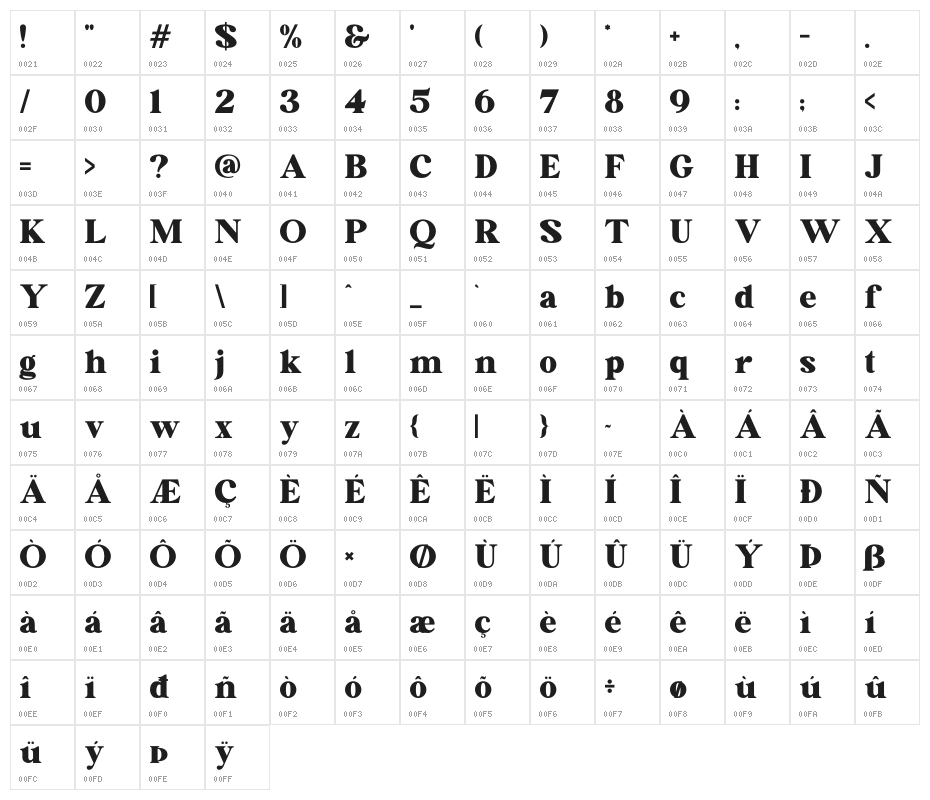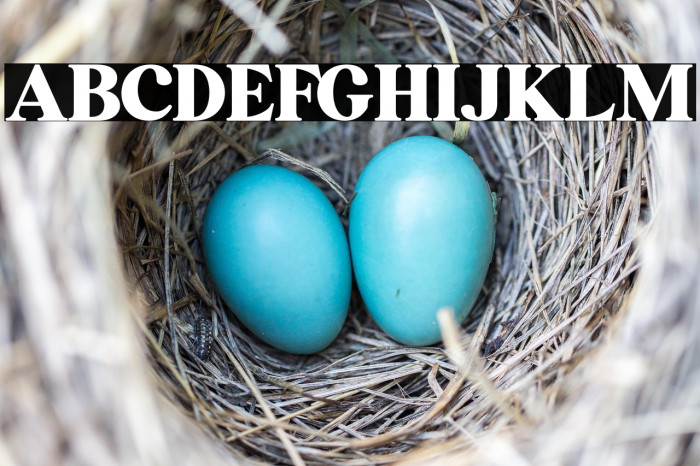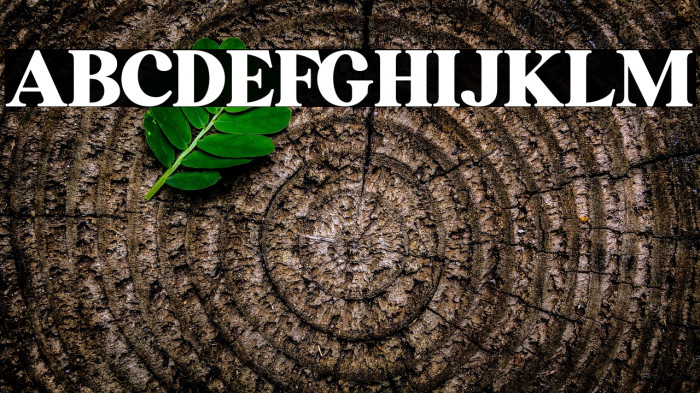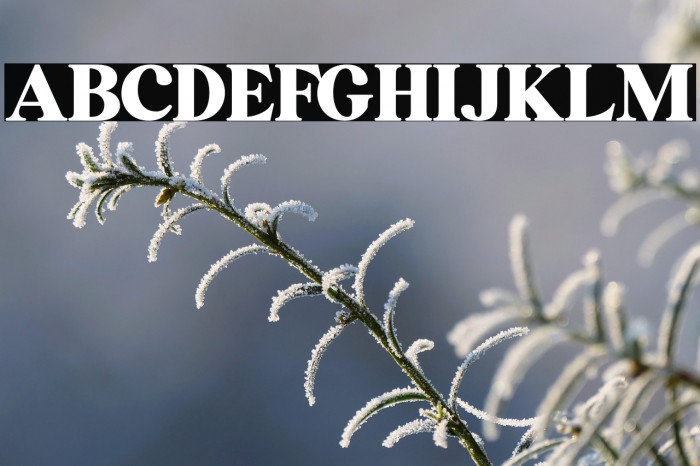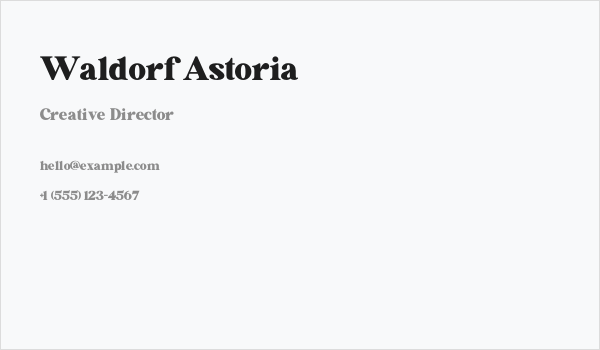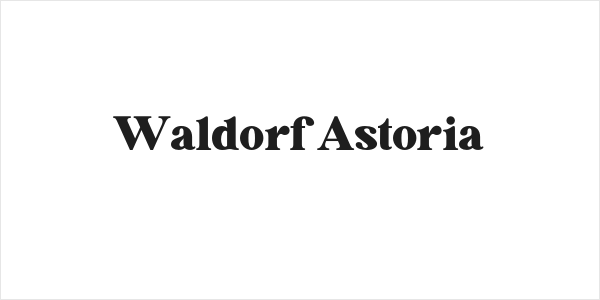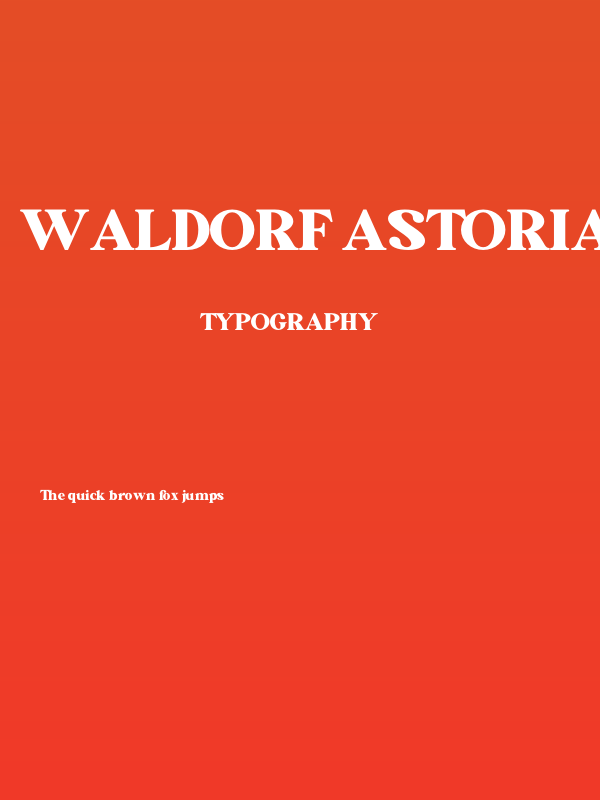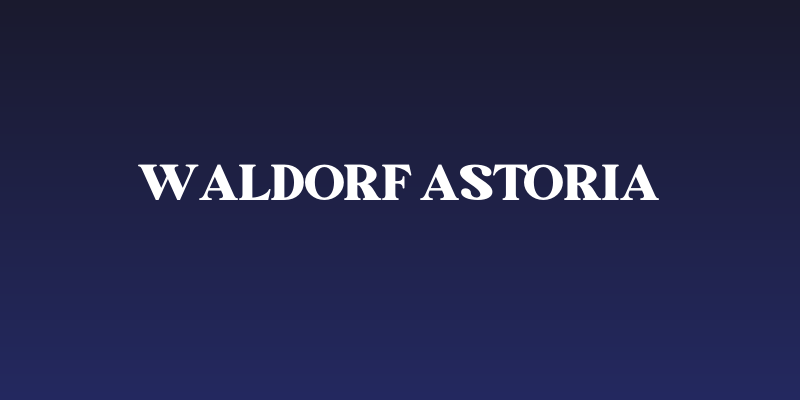
Waldorf Astoria Font
Waldorf Astoria Description
This font exudes a classic and sophisticated charm, characterized by its bold and prominent serif design. The letters are well-defined with thick strokes and elegant curves, giving it a strong presence. The uppercase characters are stately and commanding, while the lowercase letters maintain a consistent and harmonious flow. The numerals are equally robust, ensuring readability and impact. Special characters are crafted with the same attention to detail, making them suitable for various applications. Overall, this font combines traditional serif elements with a modern touch, making it versatile for both formal and creative uses.
| Proposed Projects | Ideal for luxury branding, editorial headlines, formal invitations, and classic logo designs. |